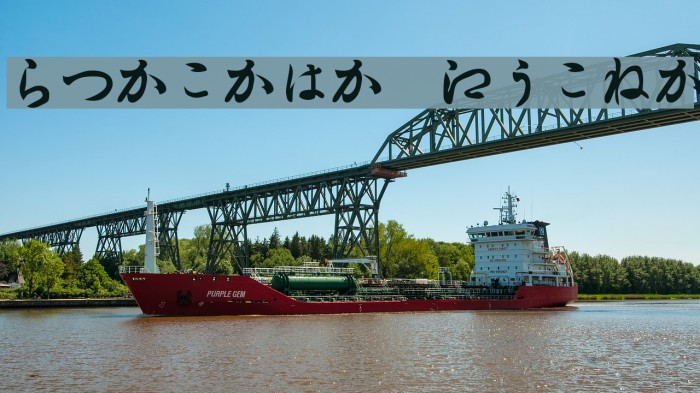
Hiragana Regular Font
This font is a beautifully crafted representation of the Hiragana script, featuring smooth, flowing strokes that capture the essence of traditional Japanese calligraphy. Each character is meticulously designed to maintain a harmonious balance between elegance and readability. The strokes vary in thickness, adding a dynamic quality to the text, while the rounded forms provide a gentle, approachable feel. This font is perfect for projects that require a touch of cultural authenticity and artistic flair, making it ideal for both digital and print media.
A graceful Hiragana script font with smooth, flowing strokes and dynamic contrast.
- Proposed Projects: Ideal for cultural projects, educational materials, artistic designs, and any work requiring authentic Japanese script representation.
- Overall Style: Classic
- Use Case: Headlines, Artistic designs, Educational materials